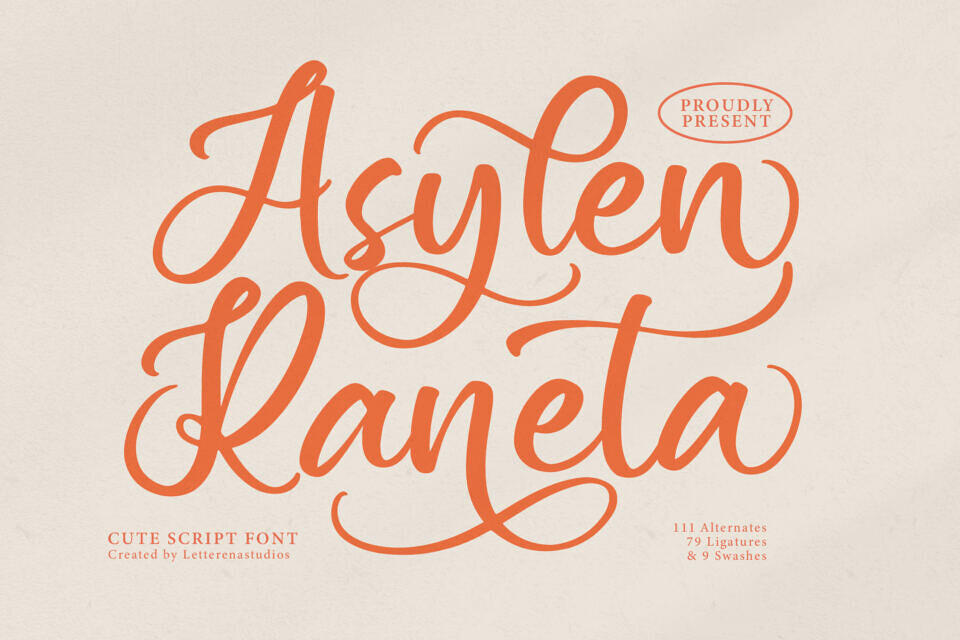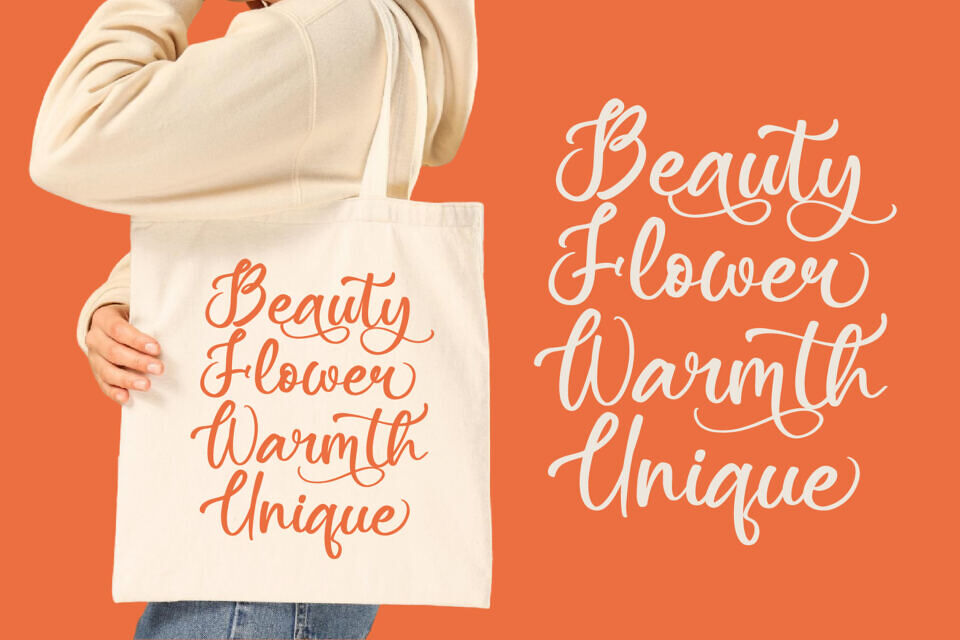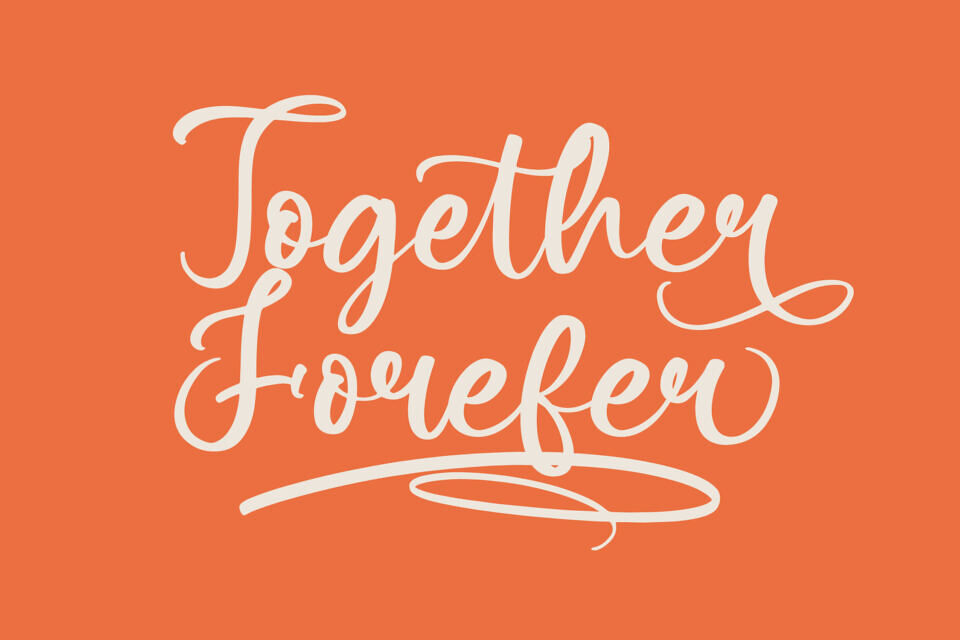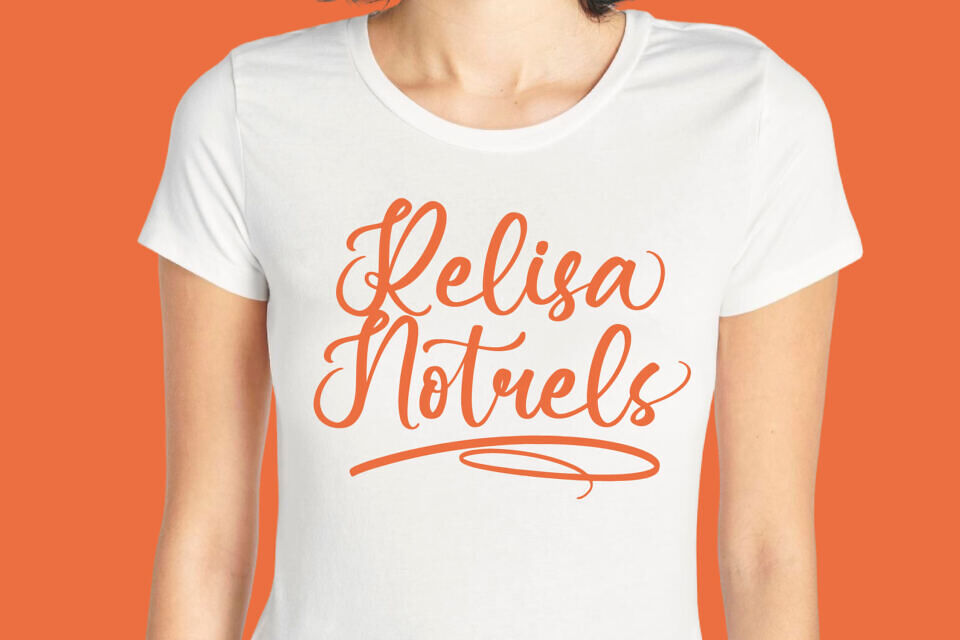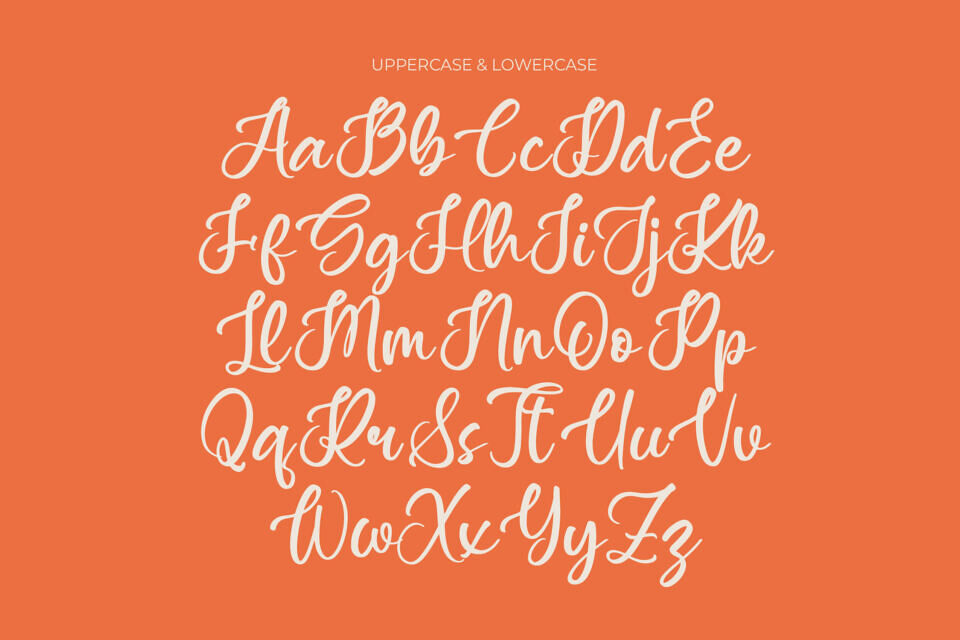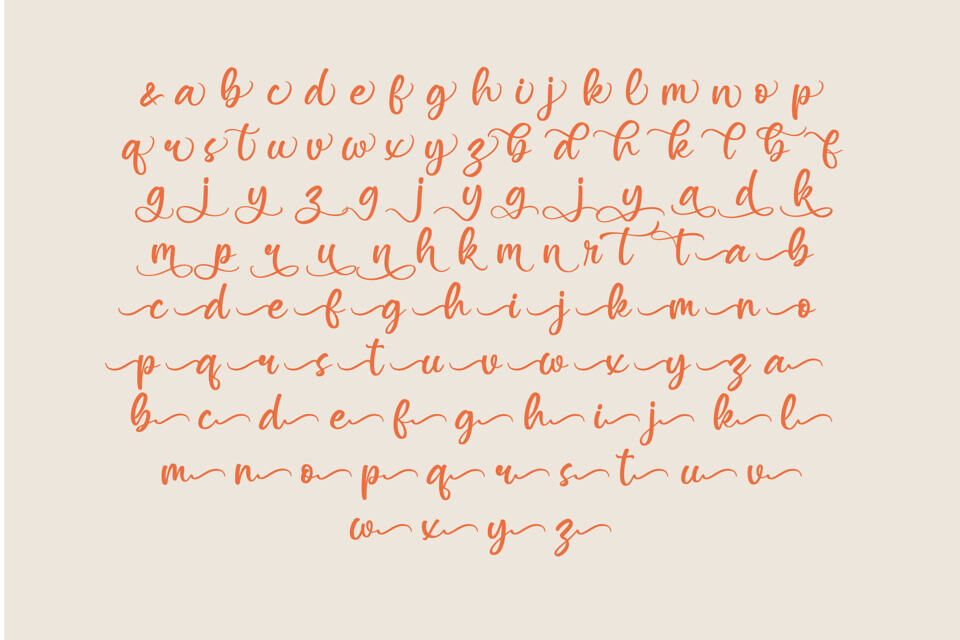
Asylen Raneta Font is a charming luxury script typeface designed to bring elegance and beauty to any project. Its stylish curves and refined details make it perfect for logos, branding, product packaging, homeware, posters, and apparel designs.
Ideal for invitations, greeting cards, quotes, photography, and special events, this versatile script font adds a luxurious handwritten touch to both personal and professional projects. Whether used on labels, business cards, or digital media, Asylen Raneta enhances your work with sophistication, making every design feel timeless, creative, and memorable.